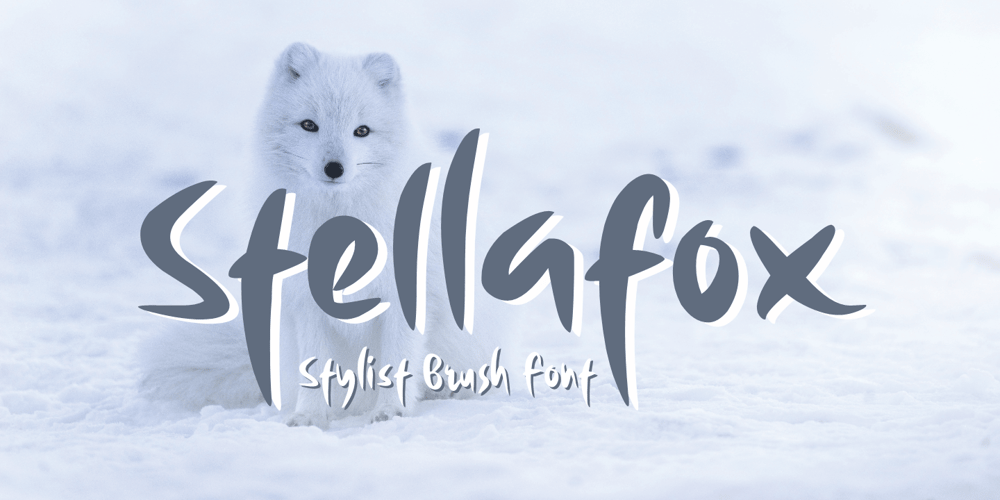
Stellafox Font Family was designed by Ahmad Zulfikar Ali and published by ZetDesign. Stellafox contains 2 styles and family package options. Stella fox is a font with a neat brush stroke style. This font gives you a free and boundless impression. This font is available in two styles, regular and italic. and is equipped with an open type feature to give creative designers many style options to create stunning works. so you can use and enjoy again and again, for anything from promotional material and handwritten quotes, to product packaging, merchandise and branding projects.